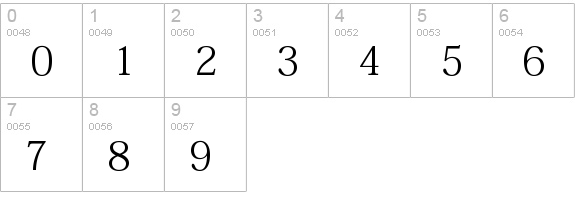
Kozuka Mincho Pro R font is a timeless and sophisticated typeface that exudes elegance and professionalism. Its classic serif style makes it perfect for a wide range of design projects, from formal invitations to corporate branding. The font features clean lines and well-balanced proportions, making it easy to read both in print and on screen. What sets Kozuka Mincho Pro R font apart is that it is not only visually stunning but also versatile and easy to work with. Its extensive character set includes support for various languages, ensuring that it can be used for different international projects. Whether you're designing a brochure, creating a website, or crafting a logo, this font will elevate your work and give it a touch of sophistication. The best part is that Kozuka Mincho Pro R font is free to download at FontsMarket.com. This means that you can access this high-quality typeface without any cost, making it a valuable resource for designers and creatives. Don't miss out on the opportunity to enhance your projects with this beautiful font – download Kozuka Mincho Pro R today and take your designs to the next level.